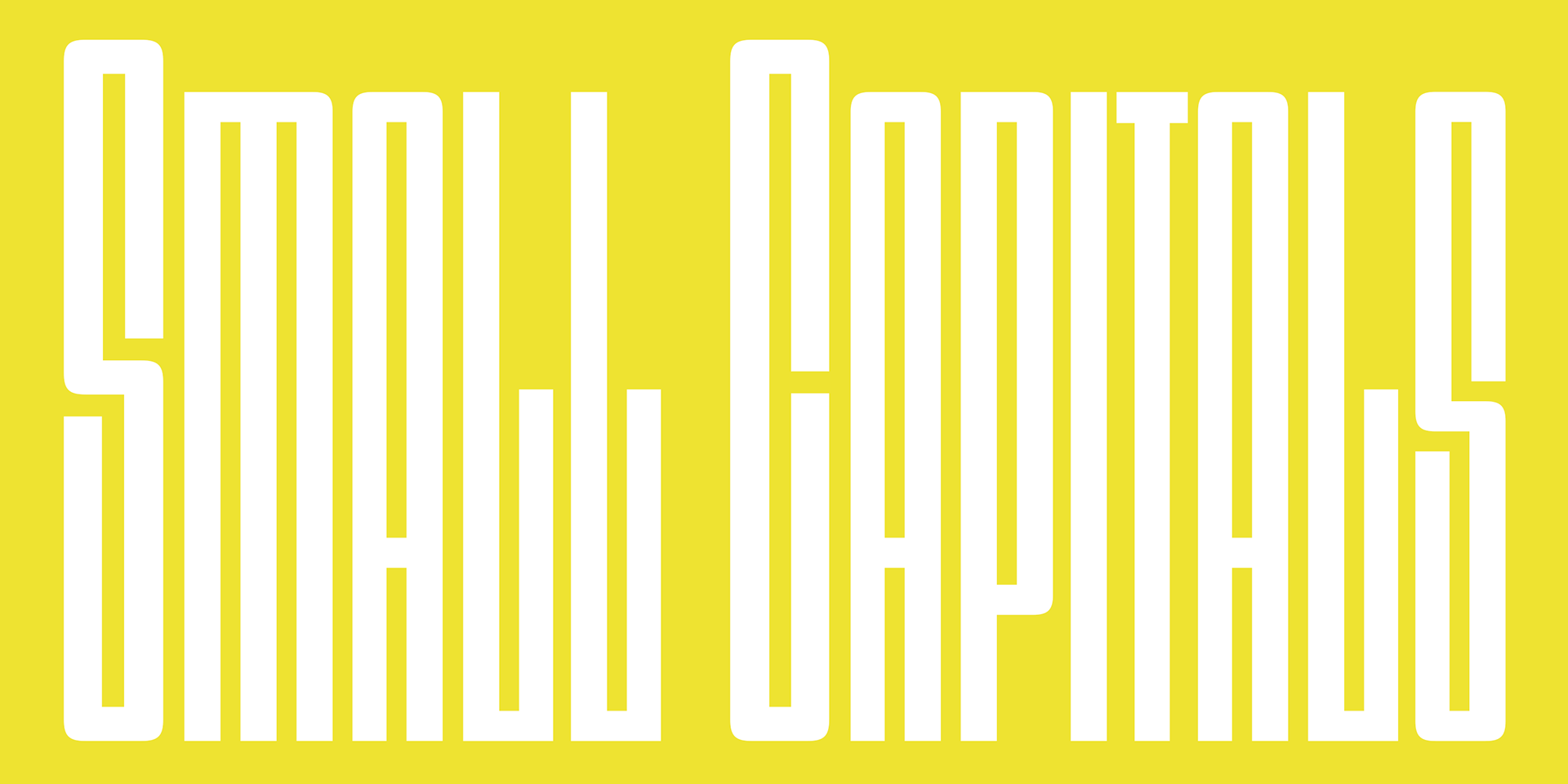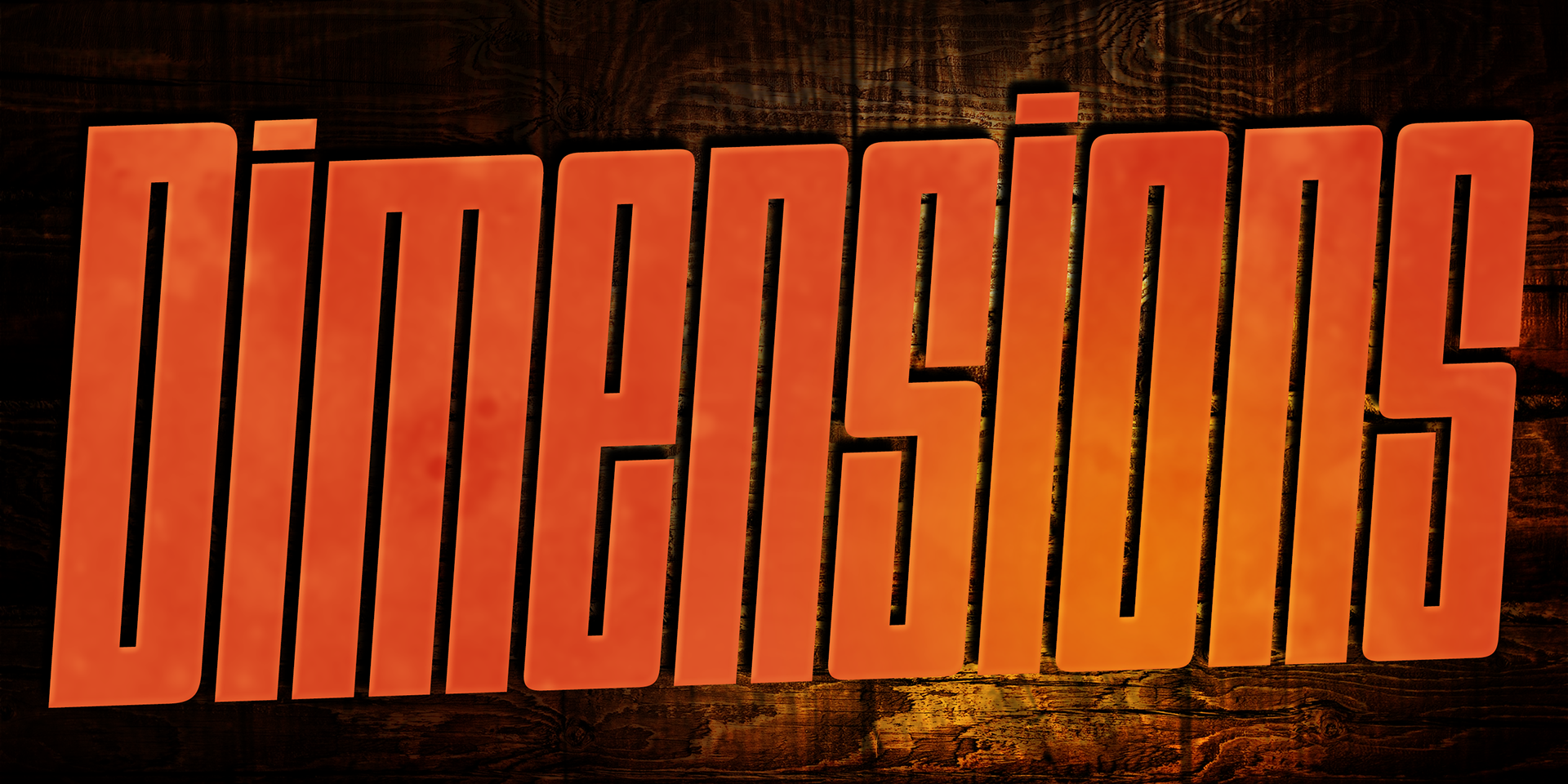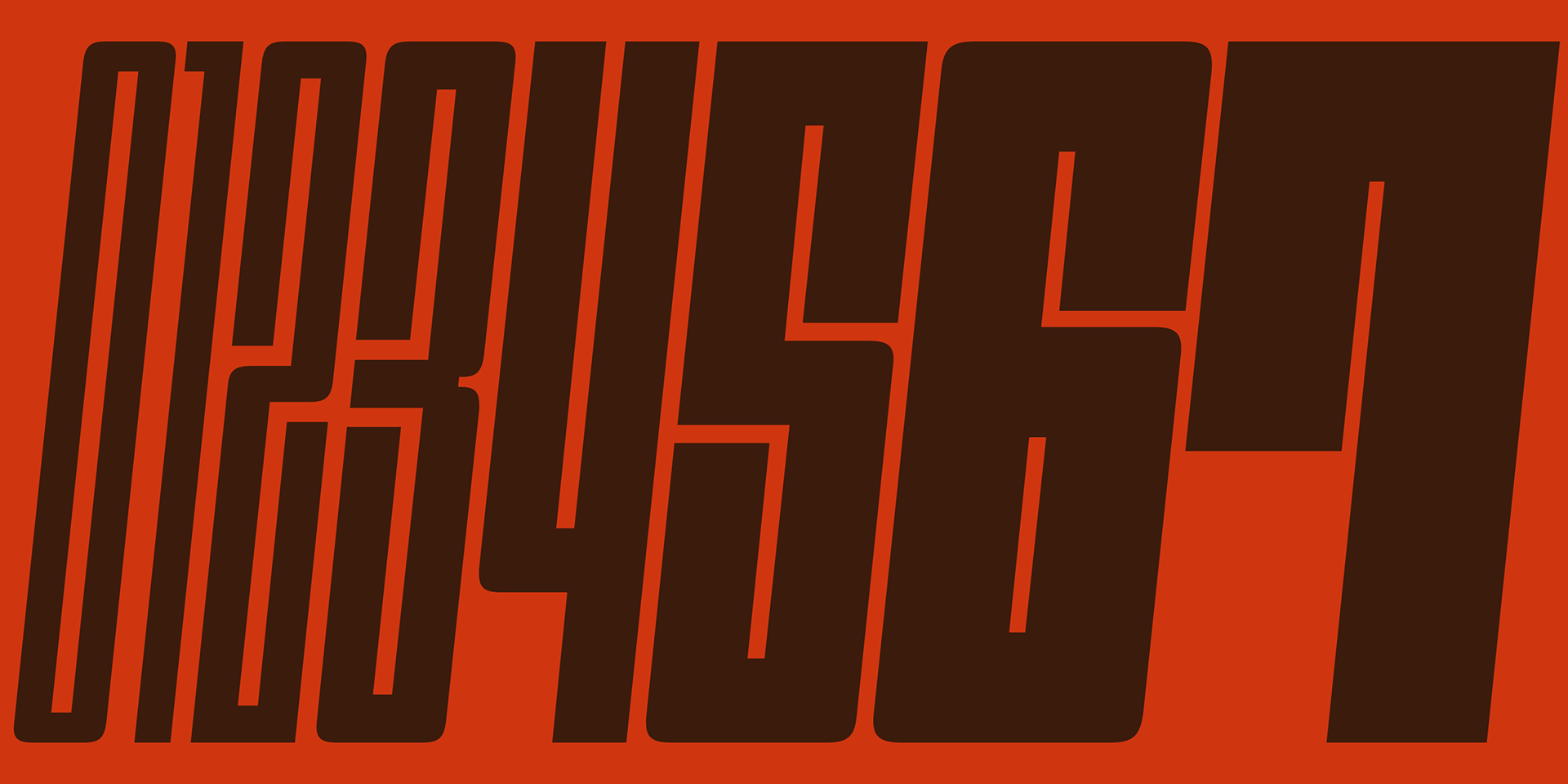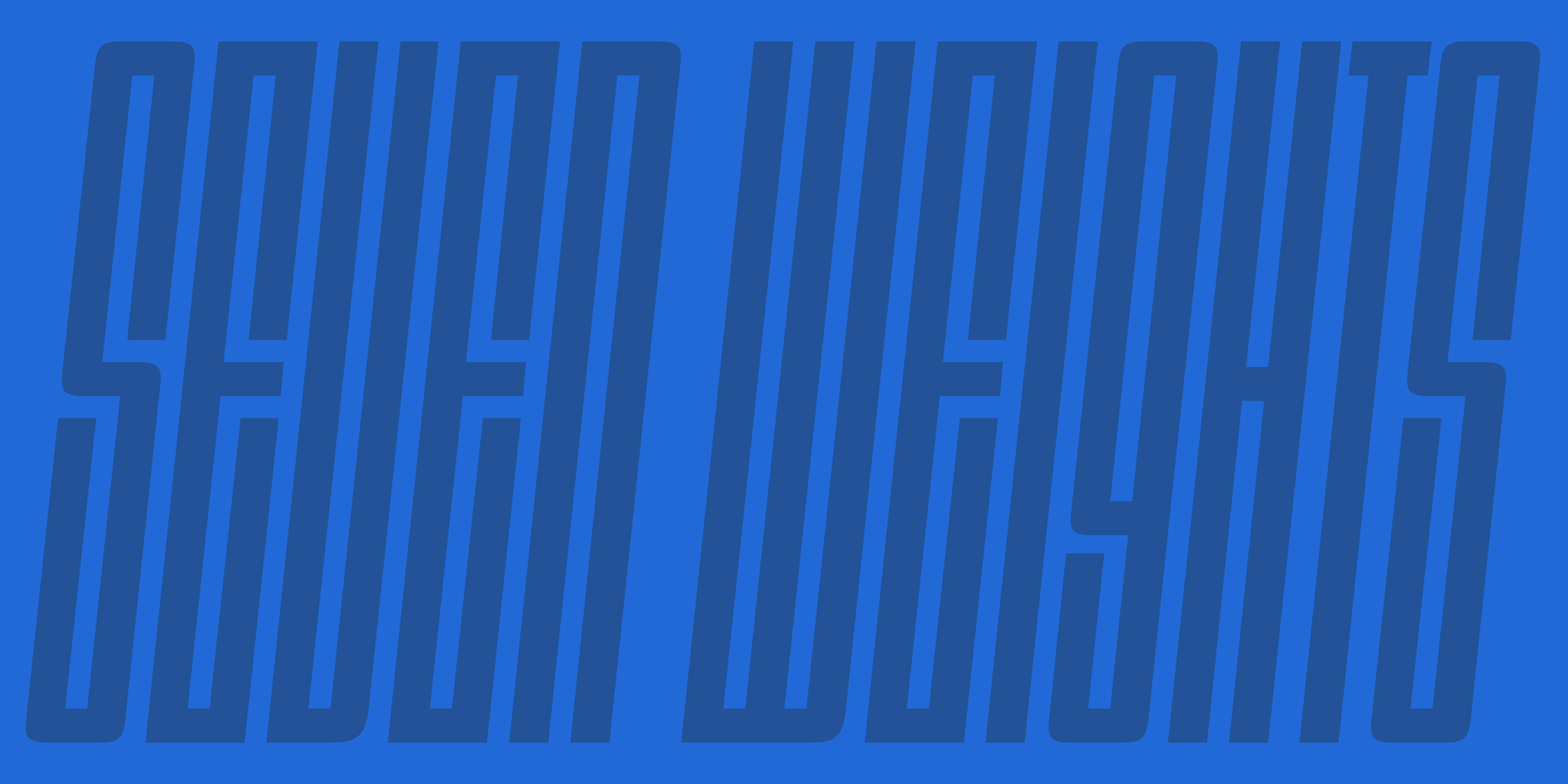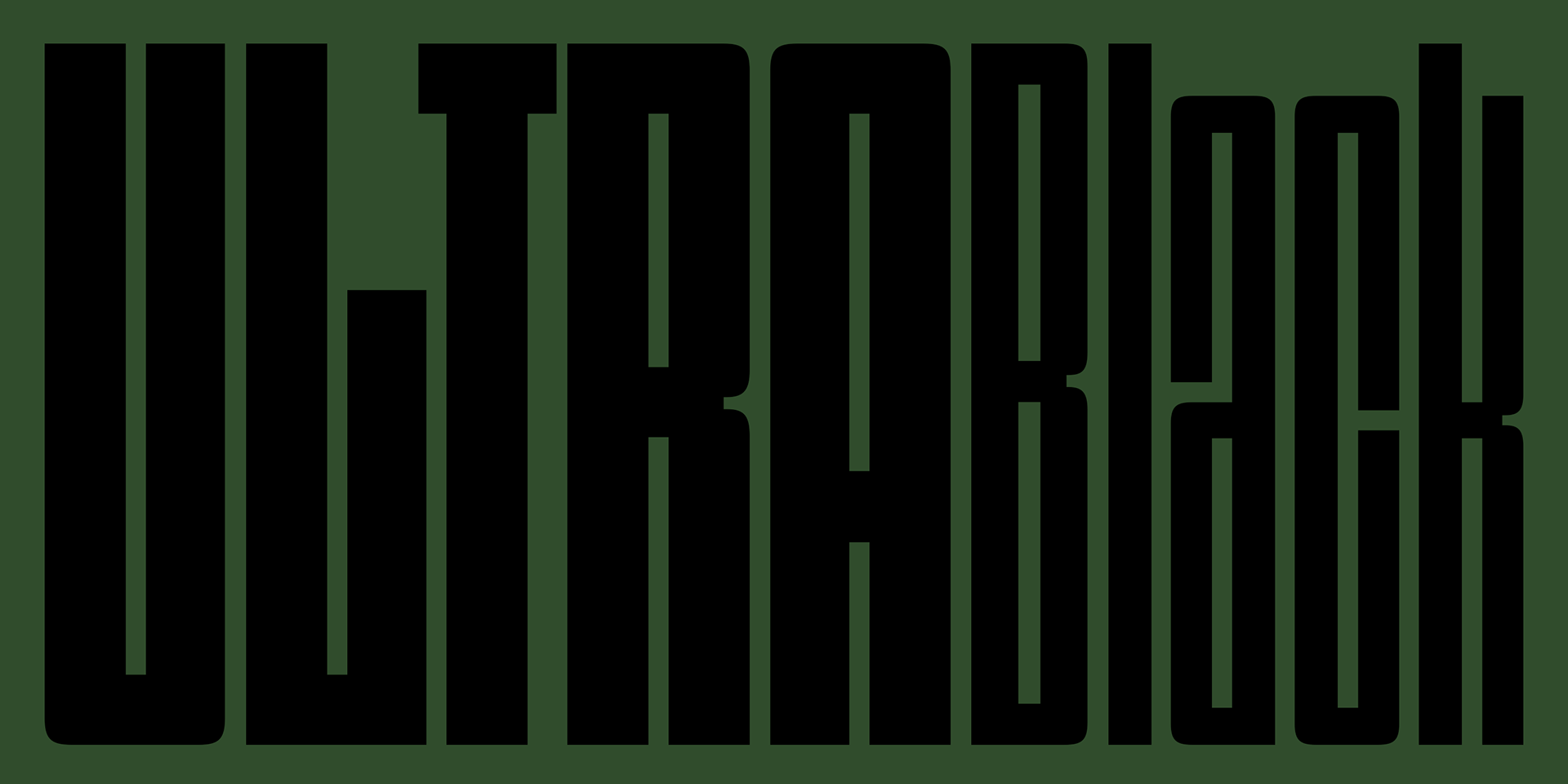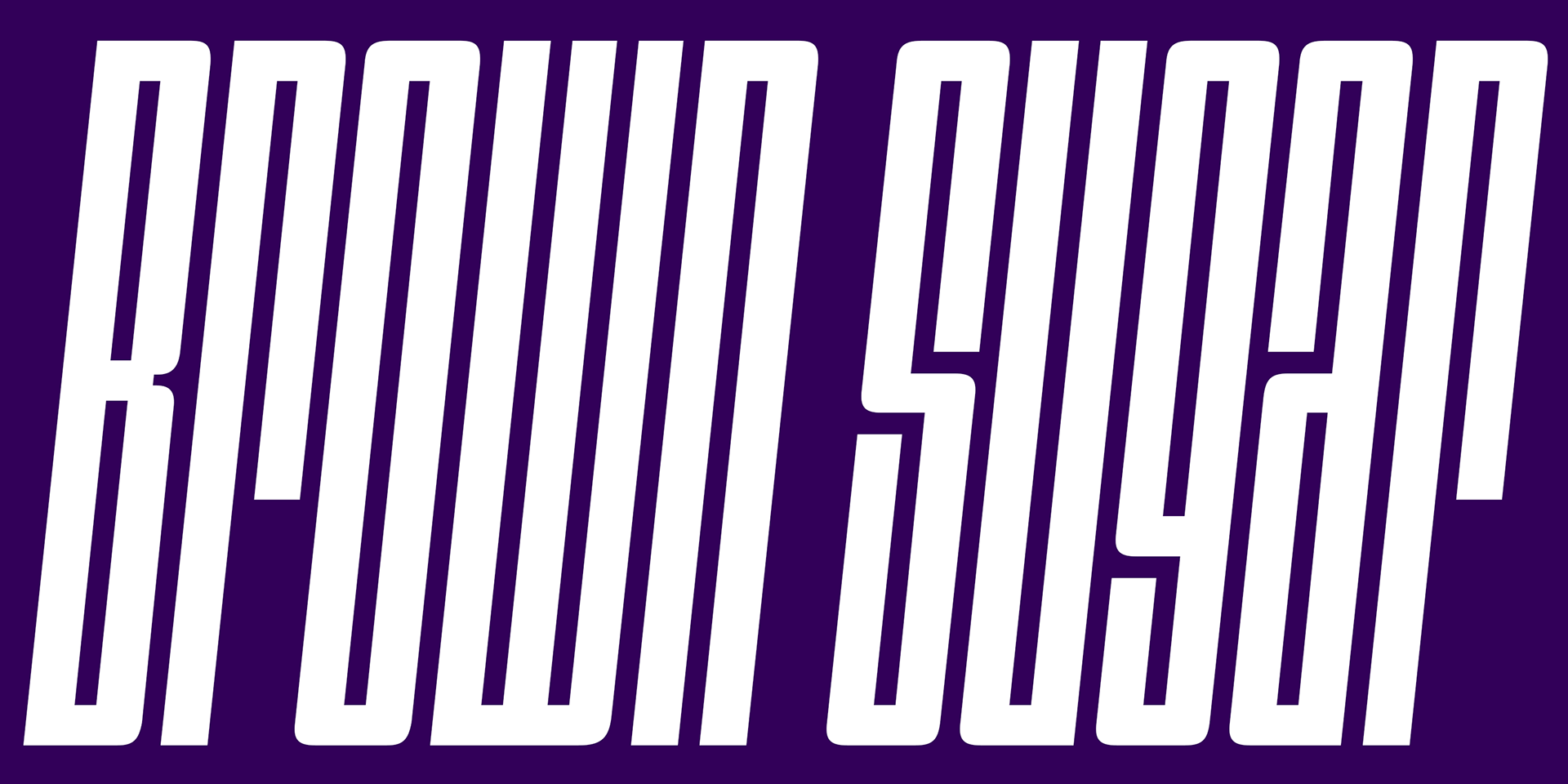
Dimensions
Dimensions is a redesigned font family based on the original Blackout font, first released as a free font in 2005.
The original Blackout gained popularity worldwide, especially among fashion and music brands for use in logos and identity design.
In 2011, Blackout evolved into the Dimensions family—featuring seven weights, each with both Roman and Italic styles.
It stands as one of the most condensed, bold, and skinny font families available.
All styles include uppercase and lowercase letters, accented characters, and small capitals, accessible via the OpenType smcp feature—offering both versatility and advanced typographic control.